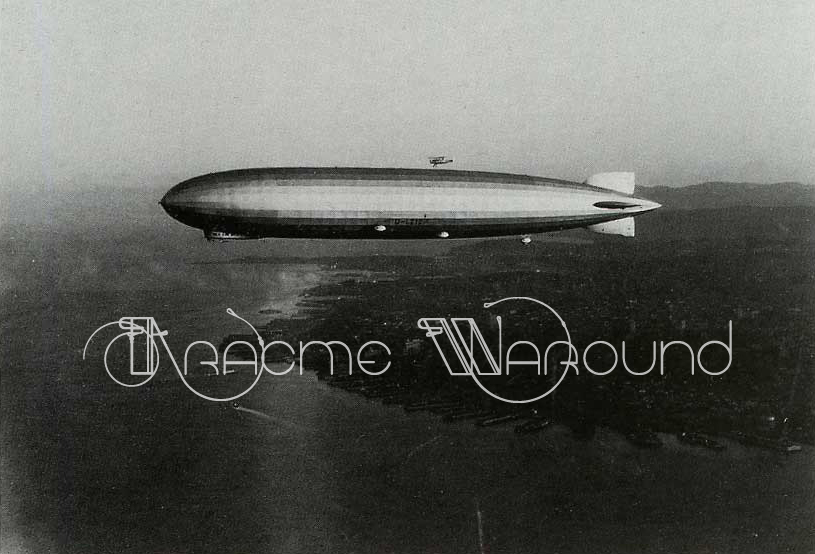
Aracme Waround Light is a free retro display font with the spare geometry of Art Deco lettering. Its extremely thin monoline strokes form tall, narrow letters, punctuated by broad circles and sharply simplified joins. The result is airy and architectural.
Designers in fashion and boutique hospitality can use it to suggest refined period styling without heavy ornament. It suits magazine covers and posters, where the unusual proportions become part of the graphic concept. Recurring circles and upright lines echo architectural details, making it apt for exhibition identities and interior branding.
Aracme Waround Light